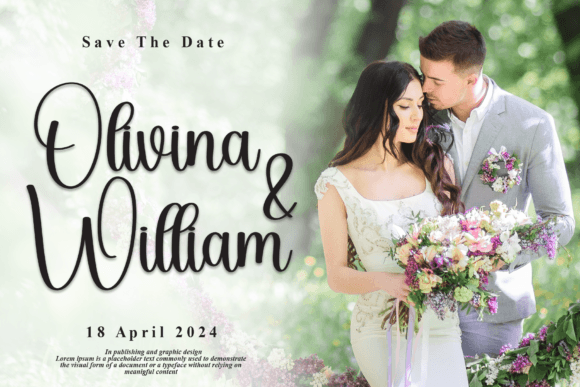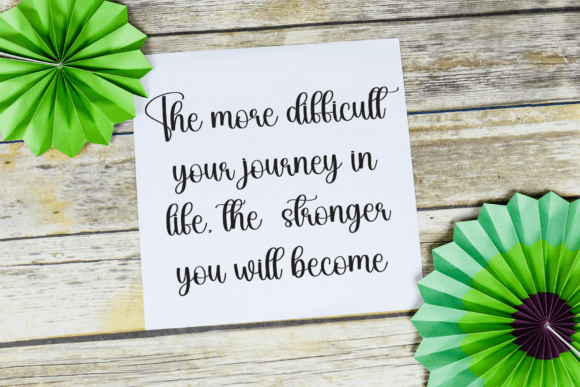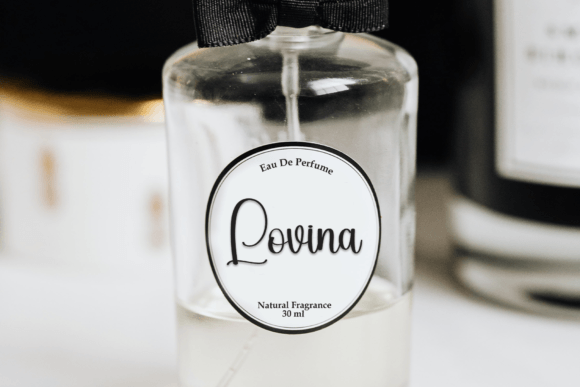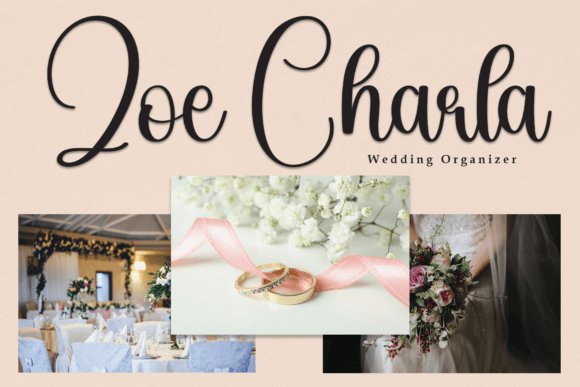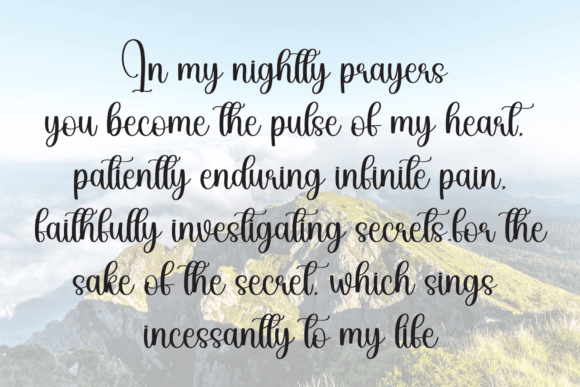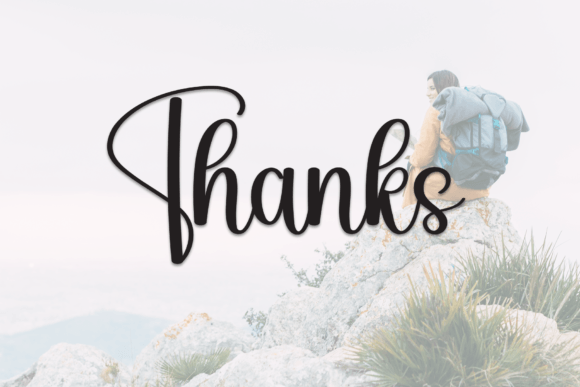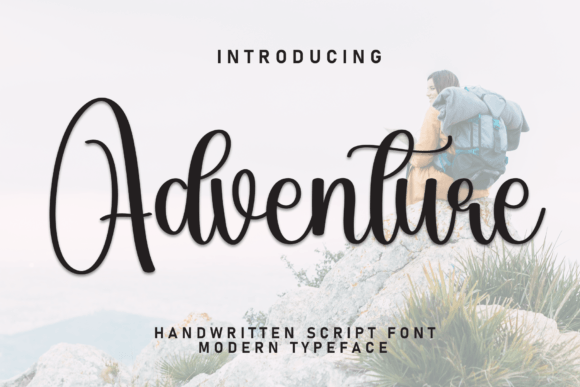
The Adventure Font: A Sweet and Delicate Handwritten Delight
Have you ever been in the middle of a design project, and suddenly, you’re stuck on finding the perfect font? I recently had this experience while working on a wedding invitation project. My client wanted a romantic, personalized touch, and I was determined to deliver. That’s when I discovered the Adventure font, a sweet and delicate handwritten font that perfectly captured the essence of the project.
A Personal Design Moment: Finding the Perfect Font
I was browsing through my font library, but nothing seemed to fit the bill. I wanted something dainty, joyful, and elegant. That’s when I stumbled upon Adventure, and it was love at first sight! The font’s delicate curves and playful vibe immediately resonated with me. I knew I had found the perfect fit for my project.
Here’s my honest review of the Adventure font:
- ✨ Delicate and dainty curves that add a touch of elegance to any design
- ✅ Perfect for romantic and personalized designs, such as wedding invitations and cards
- 💕 Beautifully crafted to evoke a sense of joy and playfulness
- 🎉 Excellent for use in titles, headings, and short paragraphs
- 🤔 Limited character set, which may not be suitable for body text or long paragraphs
- ⚠️ May not be the best choice for designs that require a high level of legibility, such as body text or captions
The Designer Inspiration Behind Adventure
Adventure was designed with love and care by a talented type designer who wanted to create a font that would evoke a sense of joy and playfulness. The designer’s inspiration came from traditional handwritten scripts, with a modern twist. The result is a beautiful and delicate font that’s perfect for romantic and personalized designs.
| What is the Adventure font best suited for? | The Adventure font is best suited for romantic and personalized designs, such as wedding invitations, cards, and other creative projects. |
| Is Adventure a versatile font? | While Adventure is a beautiful font, it may not be the most versatile font. It’s best suited for titles, headings, and short paragraphs, rather than body text or long blocks of text. |